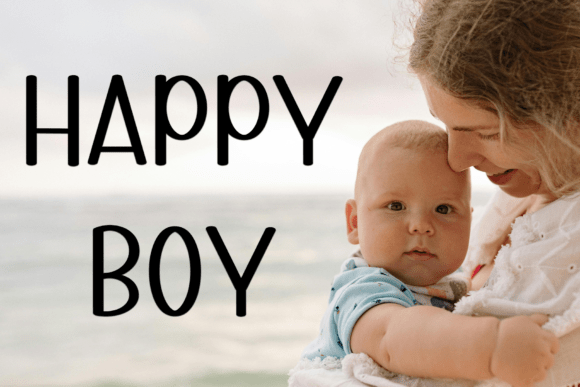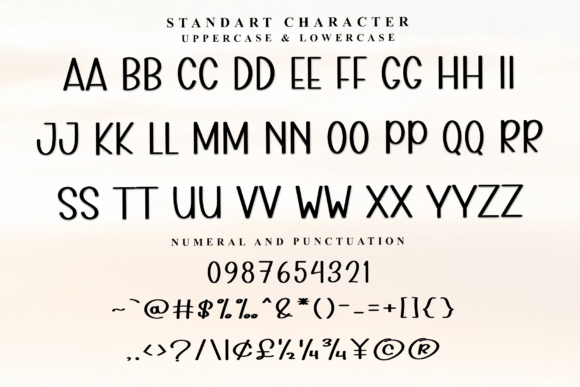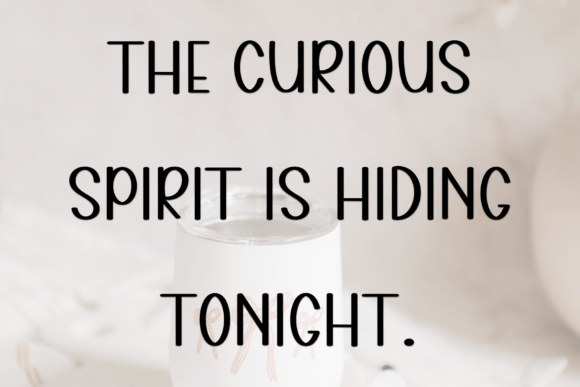
Introduction to Notes Cookies Font
Have you ever stumbled upon the perfect font in the middle of a creative project, and suddenly everything falls into place? It’s that moment when hours of brainstorming and designing are replaced with a spark of excitement, and you know you’ve found the missing piece. For many designers, this moment is what drives them to keep pushing the boundaries of their art.
One such font that has been making waves in the design community is the Notes Cookies Font. Its soft, unique touch and distinctive strokes make it a standout choice for designers looking to add a special character to their work. With its high quality and versatility, this font is perfect for a wide range of creative projects, from crafting to design.
Key Features of Notes Cookies Font
- High-quality design resource perfect for creative projects
- Features a transparent background, allowing for easy customization
- Includes a scalable vector graphics (SVG) version for high-resolution printing
- Designed with a modern and playful aesthetic, making it perfect for food, baking, or dessert-themed projects
Honest Review: Notes Cookies Font
I recently stumbled upon the Notes Cookies Font and I must say it’s a delightful addition to any creative project. The font’s design is charming and perfect for those looking for a high-quality, free download.
- Its whimsical and playful style makes it ideal for baked goods, desserts, and other sweet treats.
- The transparent background allows for easy customization and versatility in design.
- ⚠️ The font may not be suitable for formal or professional projects due to its playful nature.
Overall, I’m impressed with the Notes Cookies Font. It’s a great resource for designers looking to add a touch of whimsy to their creative project. If you’re working on a design related to baked goods or desserts, this font is definitely worth checking out.
Notes Cookies Font
For the best results, use the Notes Cookies Font with a transparent background to create a visually appealing design. This font is perfect for creating invitations, social media graphics, and other creative projects. You can also use it to add a personal touch to your blog or website.
Alternatives to Notes Cookies Font
Pacifico is a high-quality, elegant script font perfect for creative projects that require a touch of sophistication. It features a transparent background, making it ideal for designs with intricate patterns or textures. Pacifico is a great alternative to Notes Cookies Font for designers who want a more refined and polished look.
Comparison: Pacifico has a more delicate and cursive feel compared to the bold and playful Notes Cookies Font. It’s suitable for wedding invitations, branding materials, and other design elements that require a touch of luxury.
Great Vibes is a beautiful, handwritten font that’s perfect for designers who want to add a personal touch to their creative projects. It features a transparent background and a free download option, making it an excellent design resource for those on a budget. Great Vibes is a great alternative to Notes Cookies Font for designers who want a more casual and relaxed look.